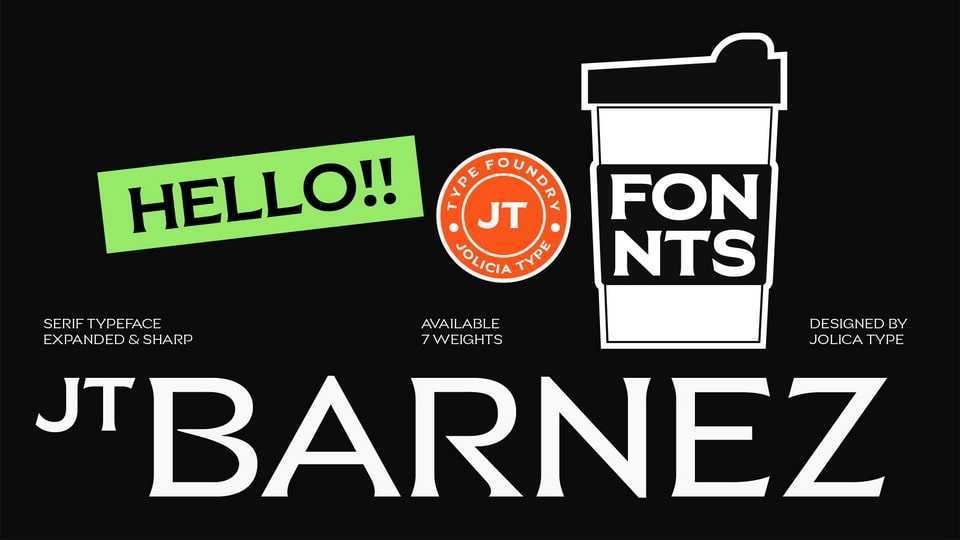
Download JT Barnez font, a refined hybrid typeface blending subtle serif elegance with the clarity of a modern sans-serif. Its expanded proportions, sharp detailing, and clean structure deliver a confident and contemporary look.